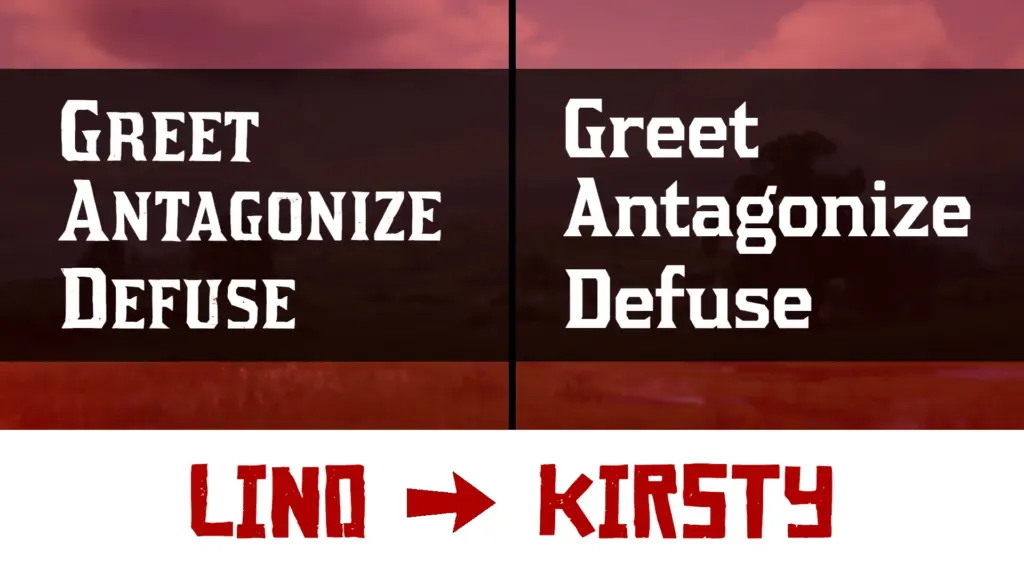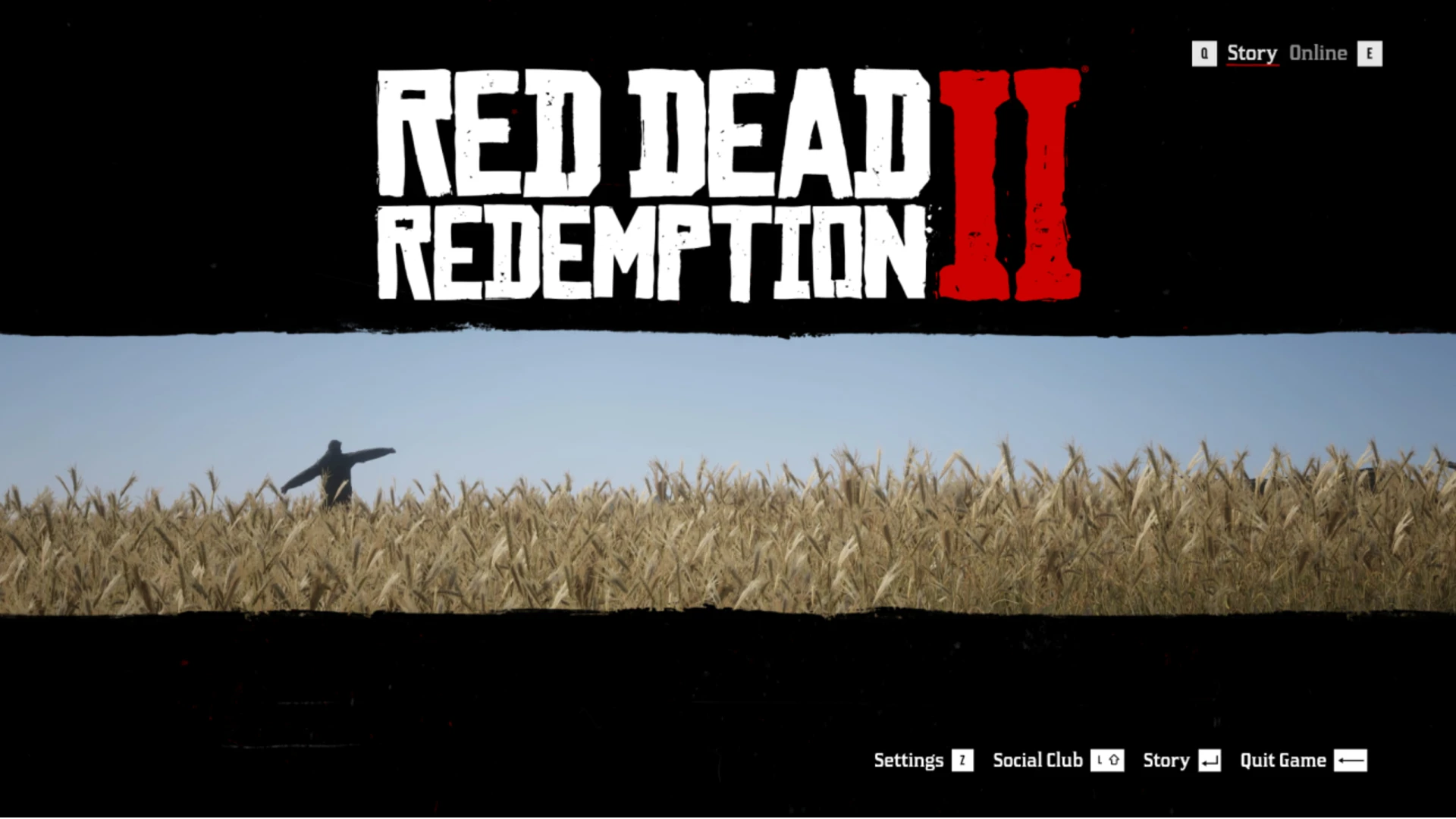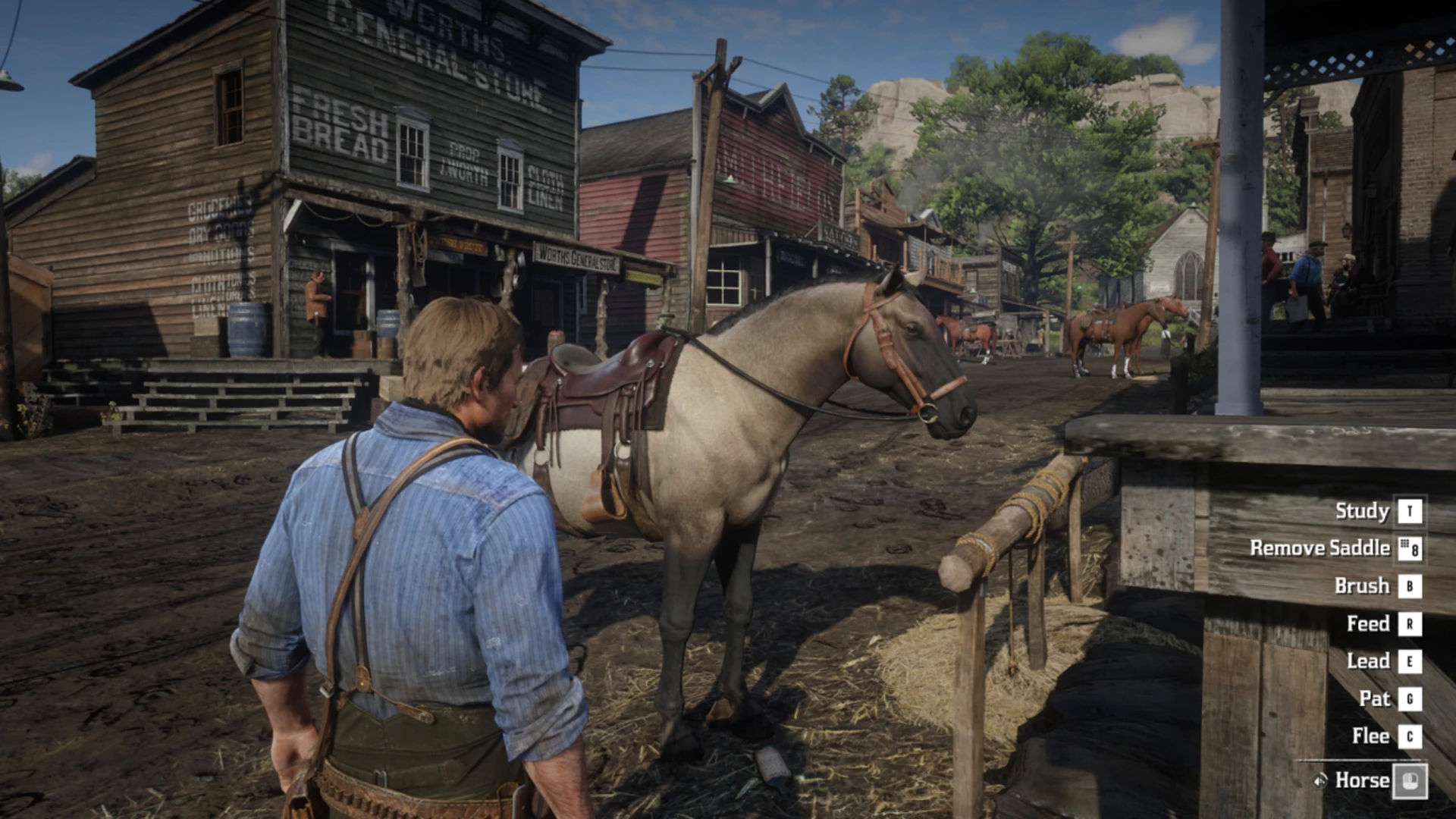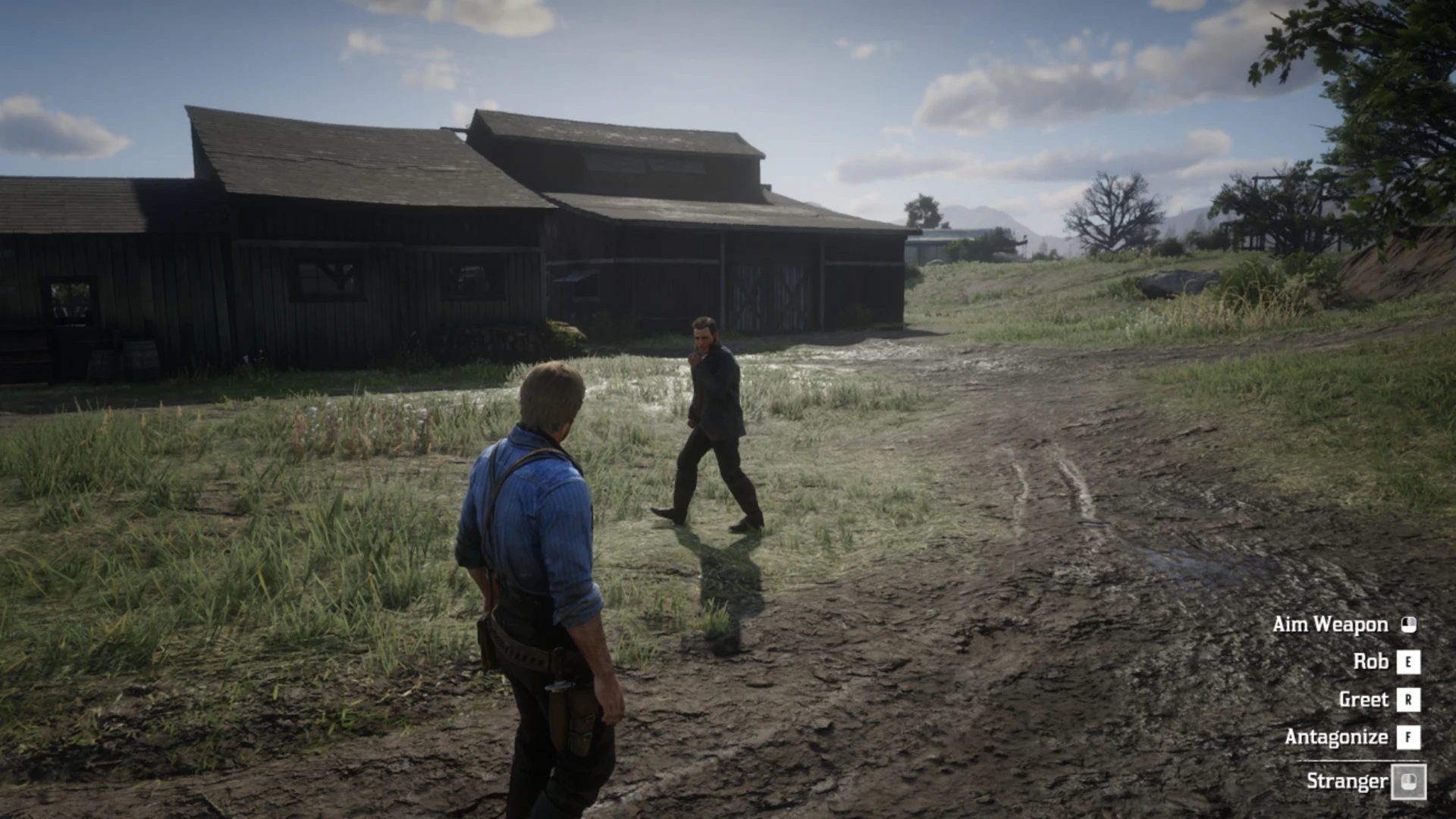
A mod that replaces “RDR Lino” with “Kirsty regular”, which is a nearly identical font with unique lowercase letters rather than smaller uppercase letters, across all user interface elements.